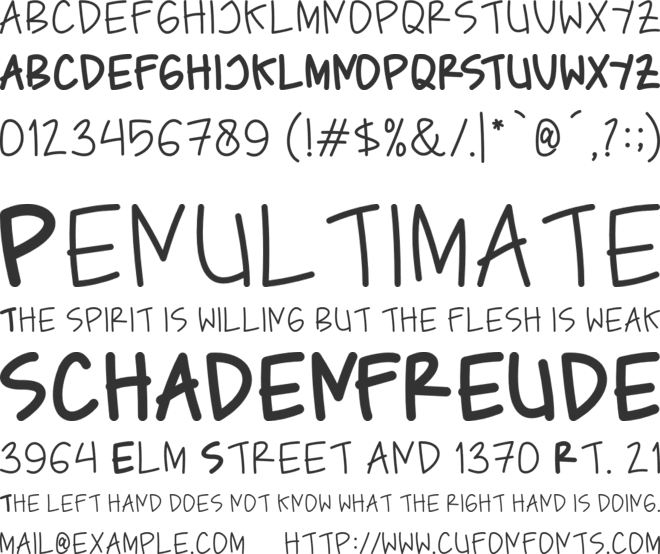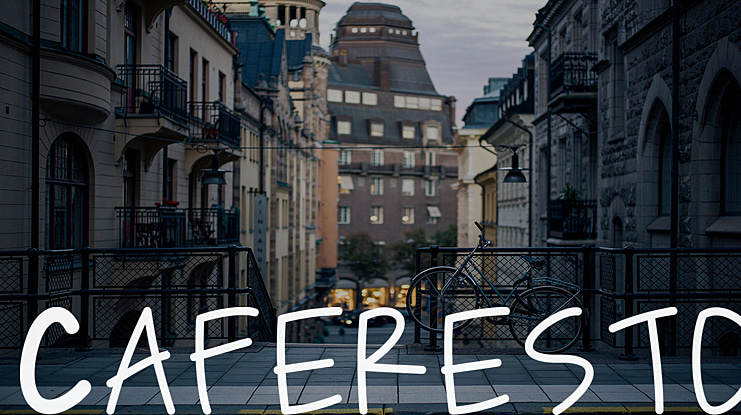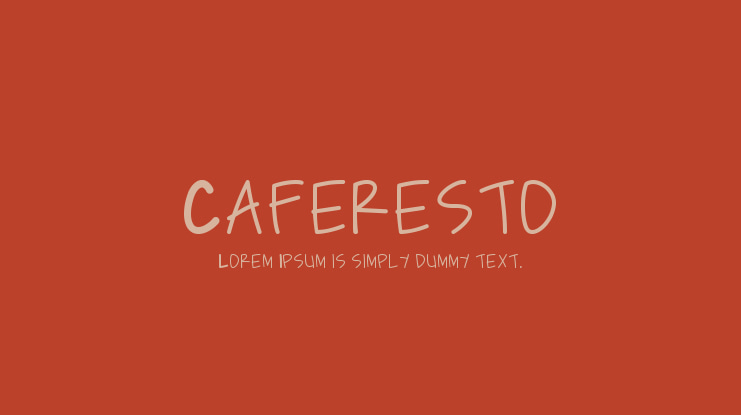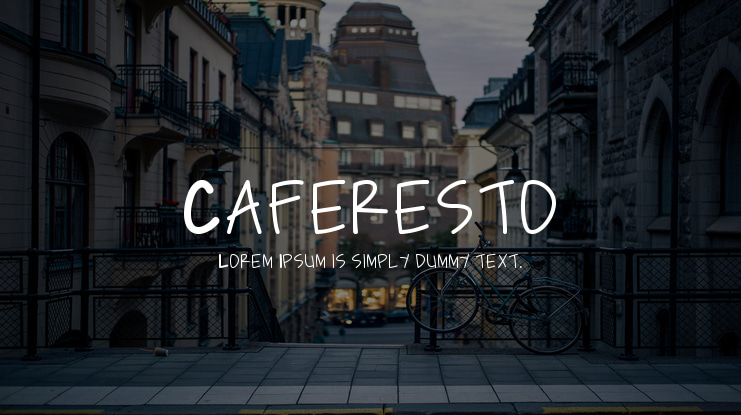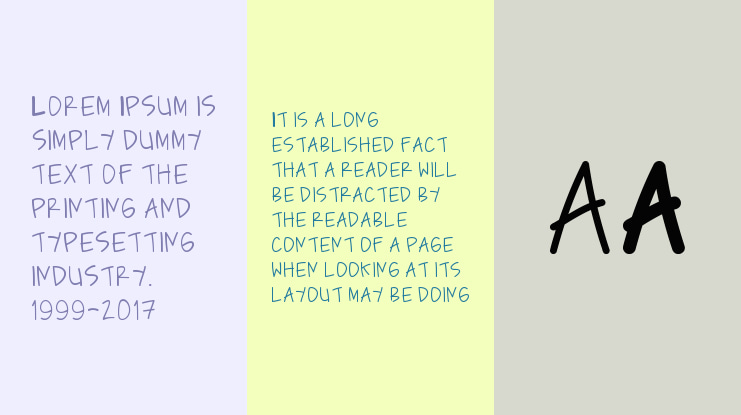
Caferesto is a cute and casual handwritten font with an incredibly friendly feel. Whether youre looking for fonts for Instagram or calligraphy scripts for DIY projects, this font will turn any creative idea into a true piece of art!
Caferesto is a recommended new font for cafe & restaurant menus with a pleasant handwriting style. This font is a font package that consists of three font types at once namely Caferesto Light, Regular Caferesto and Caferesto Bold.
This amazing font has alternatives in each letter, beautiful swash, and multilingual support. Perfect too for your creative cafe & restaurant menu design project this season.
Use the Caps Lock key to get alternate letters. This font also supports multilingual.
I also use the ligature feature to make curly swash in front of letters and behind letters in words. You can access it by using double minus (-) characters that are typed before the letters or after the letters to get a swash display. For example the letter a, type a-- for back swash. More...